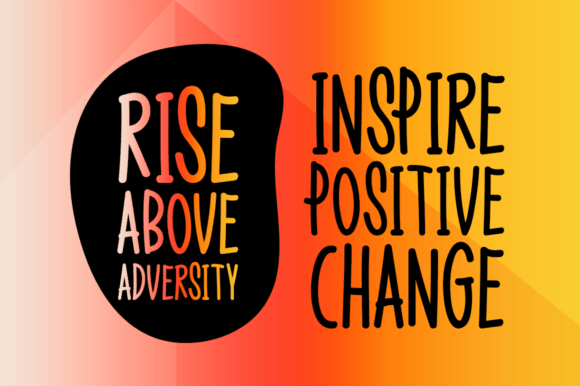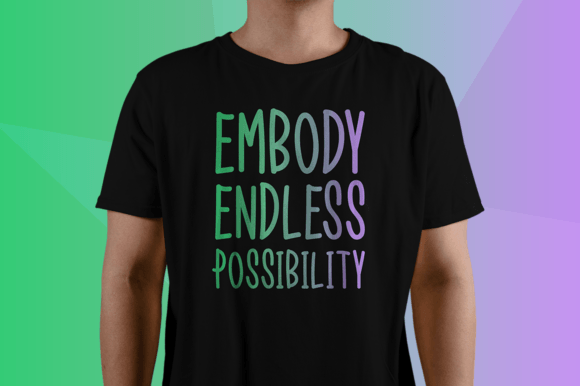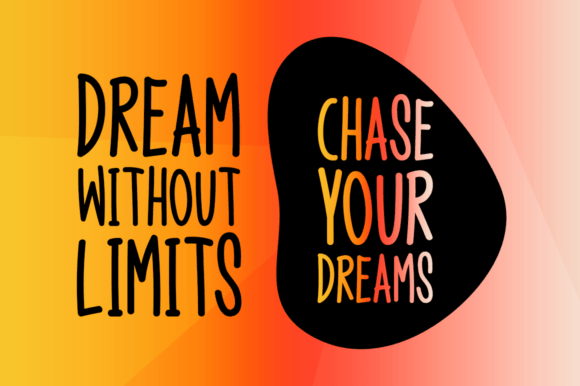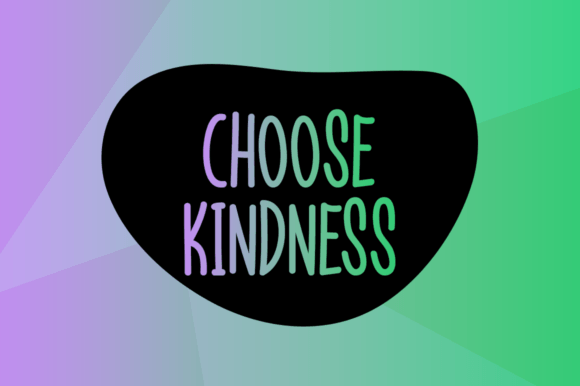
Grownup Font: Elevate Your Designs with Elegance and Whimsy
In the world of typography, a font can make or break a design. For those seeking to add a touch of elegance and playfulness to their creative projects, the Grownup font is an exceptional choice. This beautiful, handwritten font boasts a unique and whimsical style that instantly elevates any design, making it perfect for a wide range of artistic endeavors.
What is Grownup Font?
Grownup is an elegant and expressive handwritten font, carefully crafted to bring a distinctive charm to various design projects. Its flowing strokes and unique character set make it an excellent option for designers looking to add a personal touch to their work. Whether you’re creating stationery, logo designs, t-shirts, posters, or print materials, Grownup font is sure to make your designs stand out.
Key Features of Grownup Font
- Unique and Whimsical Style: Grownup font features a one-of-a-kind, handwritten style that adds a touch of whimsy to any design.
- Elegant and Expressive: The font’s elegant strokes and expressive characters make it perfect for designs that require a level of sophistication and personality.
- Flowing Strokes: The font’s flowing strokes create a sense of movement and fluidity, adding a dynamic touch to any design.
- Distinct Charm: Grownup font has a distinct charm that sets it apart from other fonts, making it ideal for designers looking to create unique and memorable designs.
Use Cases for Grownup Font
Grownup font is versatile and can be used in a variety of design projects, including:
- Stationery and Logo Designs: Add a personal touch to your stationery and logo designs with the Grownup font’s unique and elegant style.
- T-Shirts and Apparel: Create eye-catching t-shirt designs and other apparel with the font’s bold and expressive characters.
- Posters and Print Materials: Use Grownup font to create stunning posters, flyers, and print materials that grab attention.
- Music Album Covers: Add a touch of elegance and sophistication to your music album covers with the Grownup font.
- Social Media Visuals: Create engaging social media visuals, such as Instagram posts and Facebook graphics, with the font’s whimsical and playful style.
- Invitations: Make your invitations stand out with the Grownup font’s unique and elegant style.
Why Choose Grownup Font?
With so many fonts available, why choose Grownup font for your design projects? Here are a few reasons:
- Adds Warmth and Sincerity: Grownup font adds a touch of warmth and sincerity to any design, making it perfect for projects that require a personal touch.
- Versatile: The font is versatile and can be used in a wide range of design projects, from stationery to social media visuals.
- Unique and Memorable: Grownup font is designed to make your designs stand out, making it ideal for designers looking to create unique and memorable designs.
In conclusion, the Grownup font is an exceptional choice for designers and crafters looking to add a touch of elegance and whimsy to their design projects. Its unique and expressive handwritten style, flowing strokes, and distinct charm make it perfect for a wide range of artistic endeavors. Whether you’re creating stationery, logo designs, t-shirts, posters, or social media visuals, Grownup font is sure to elevate your designs and make them stand out.